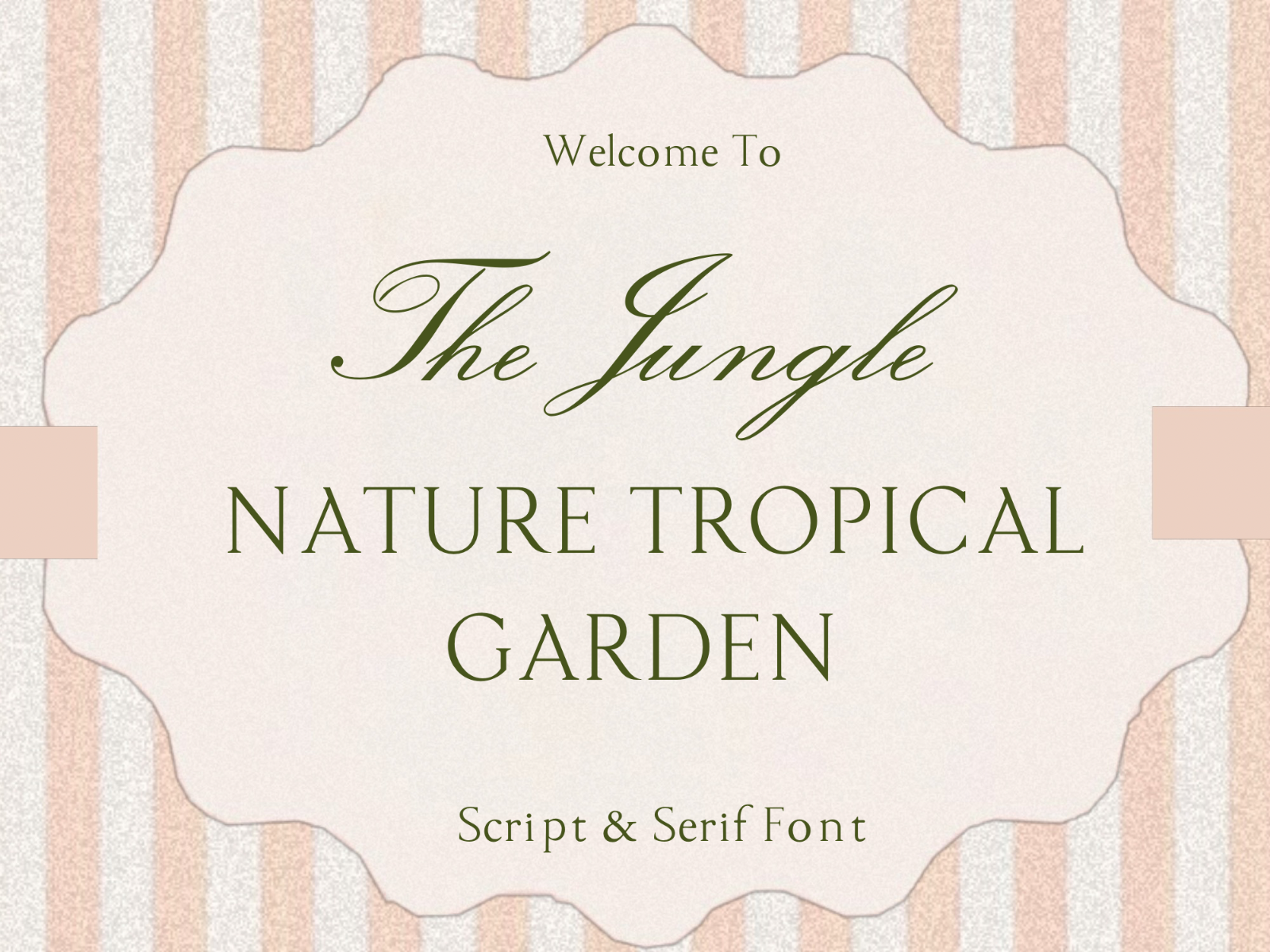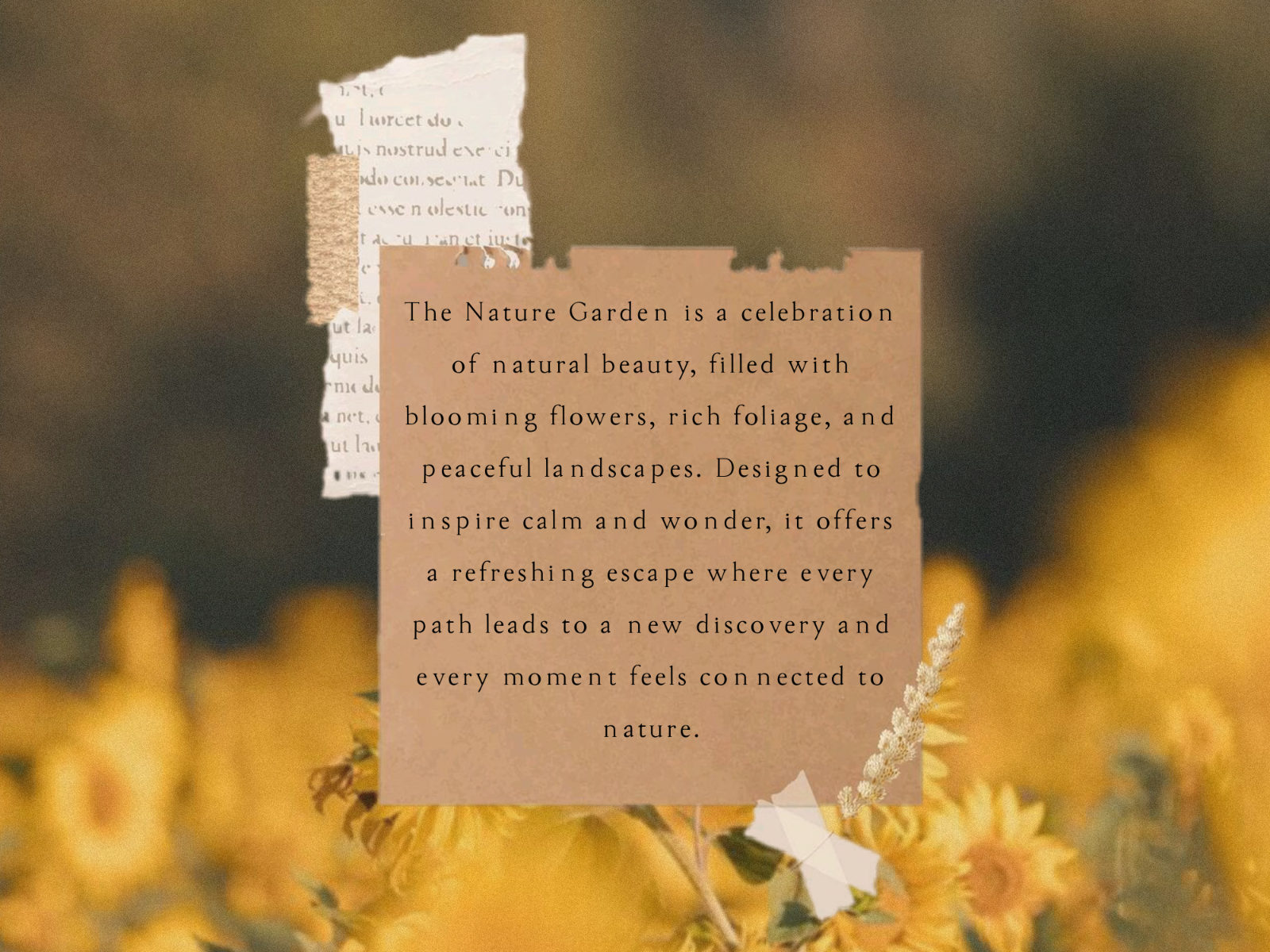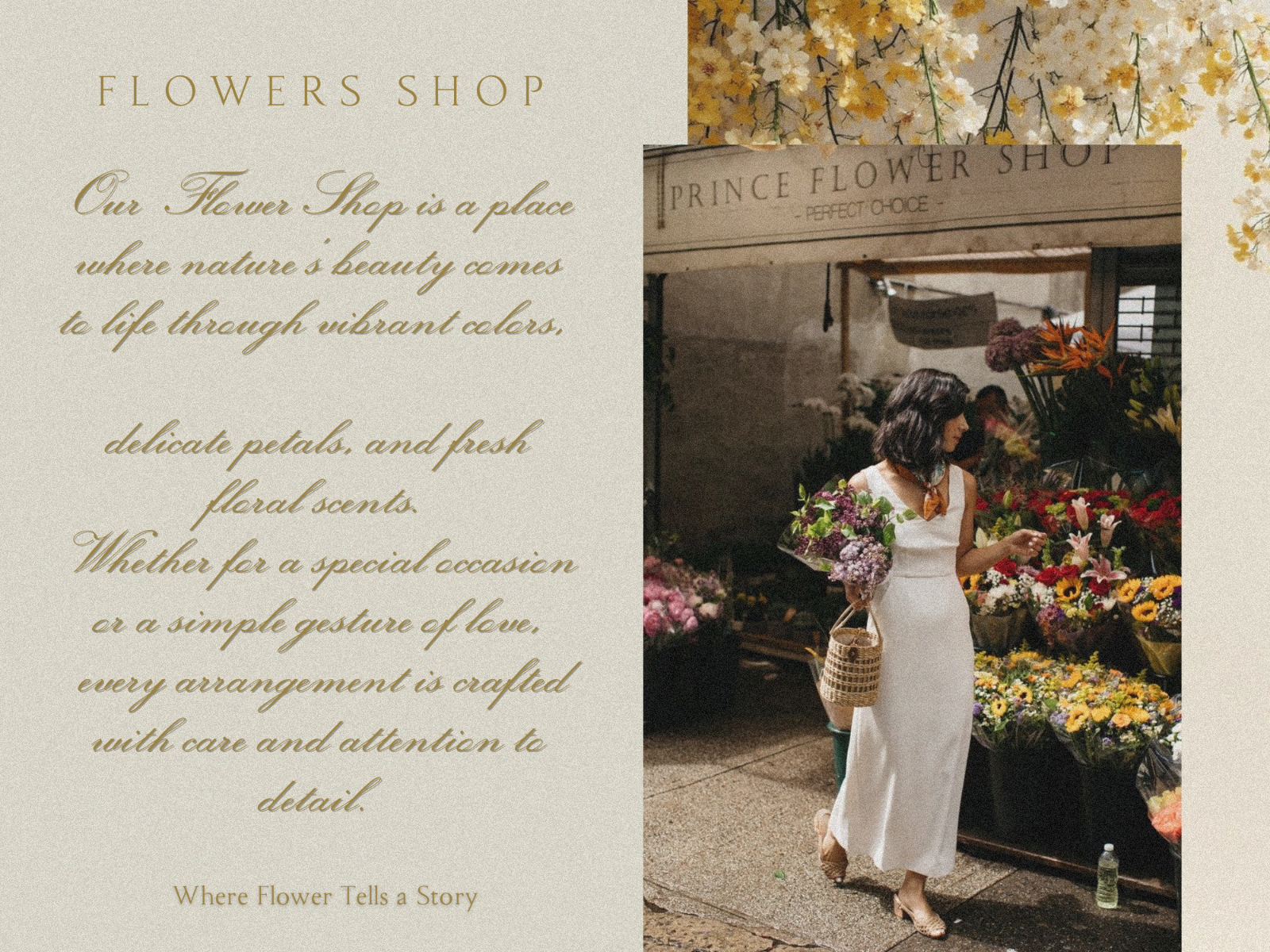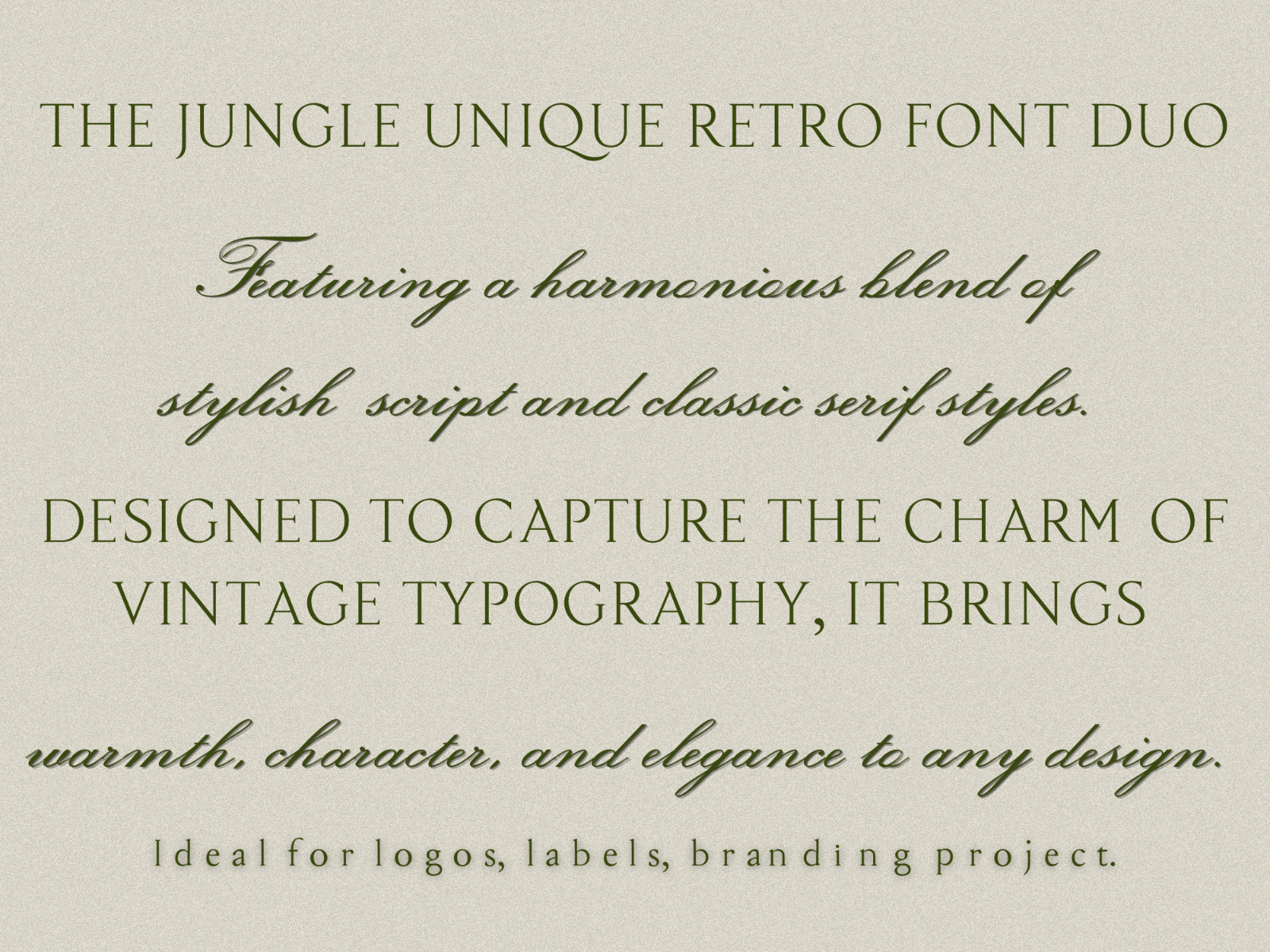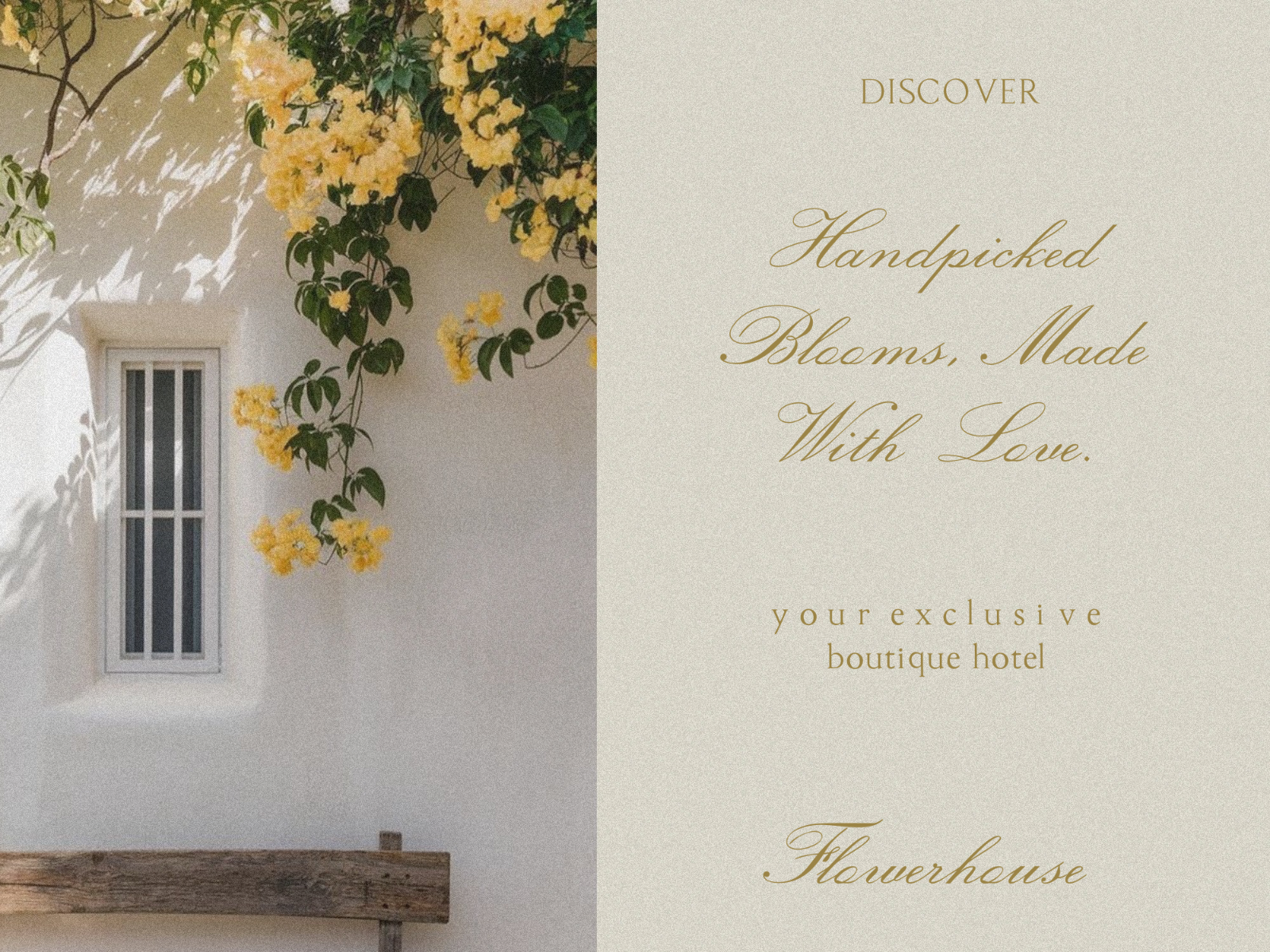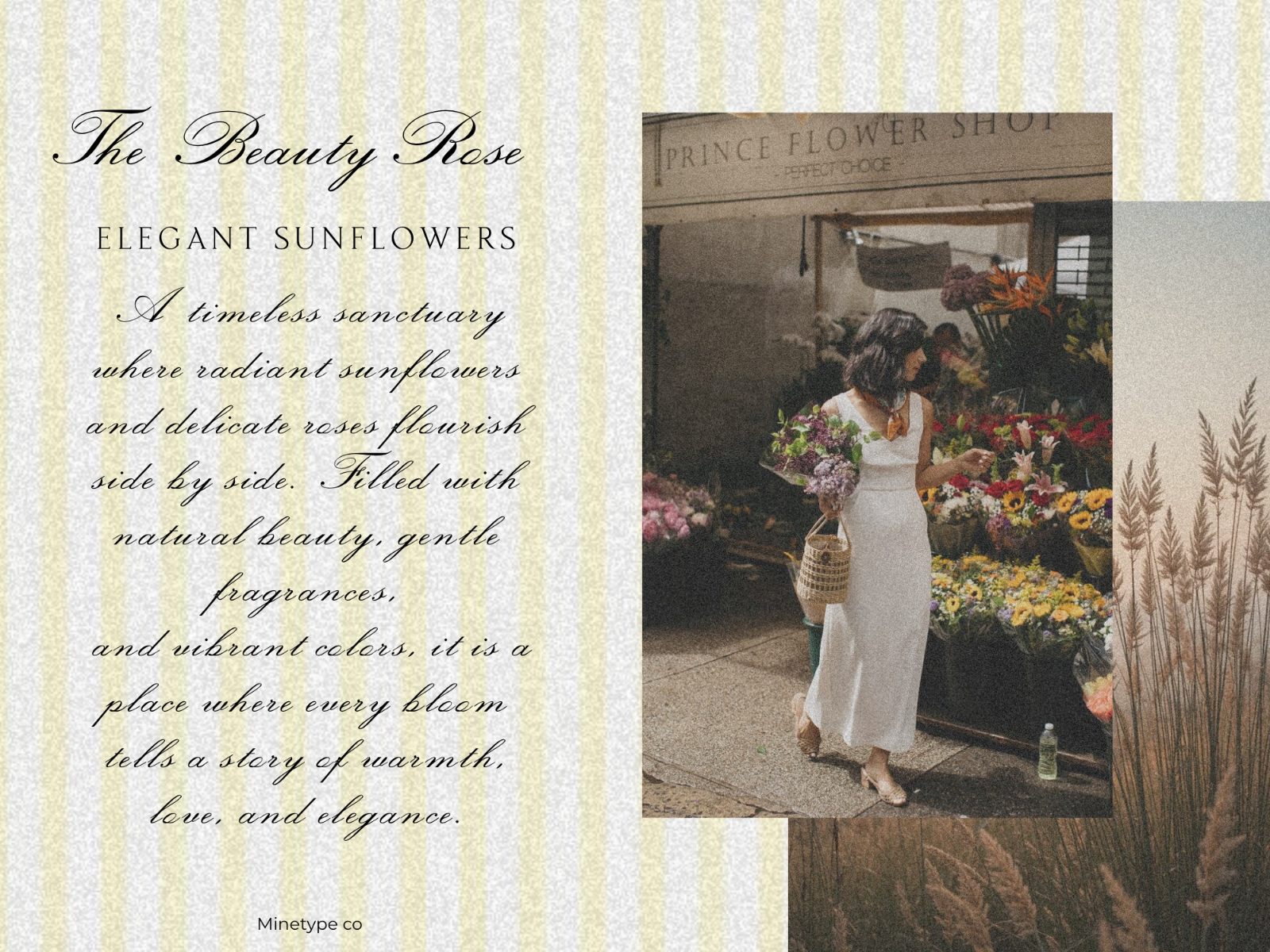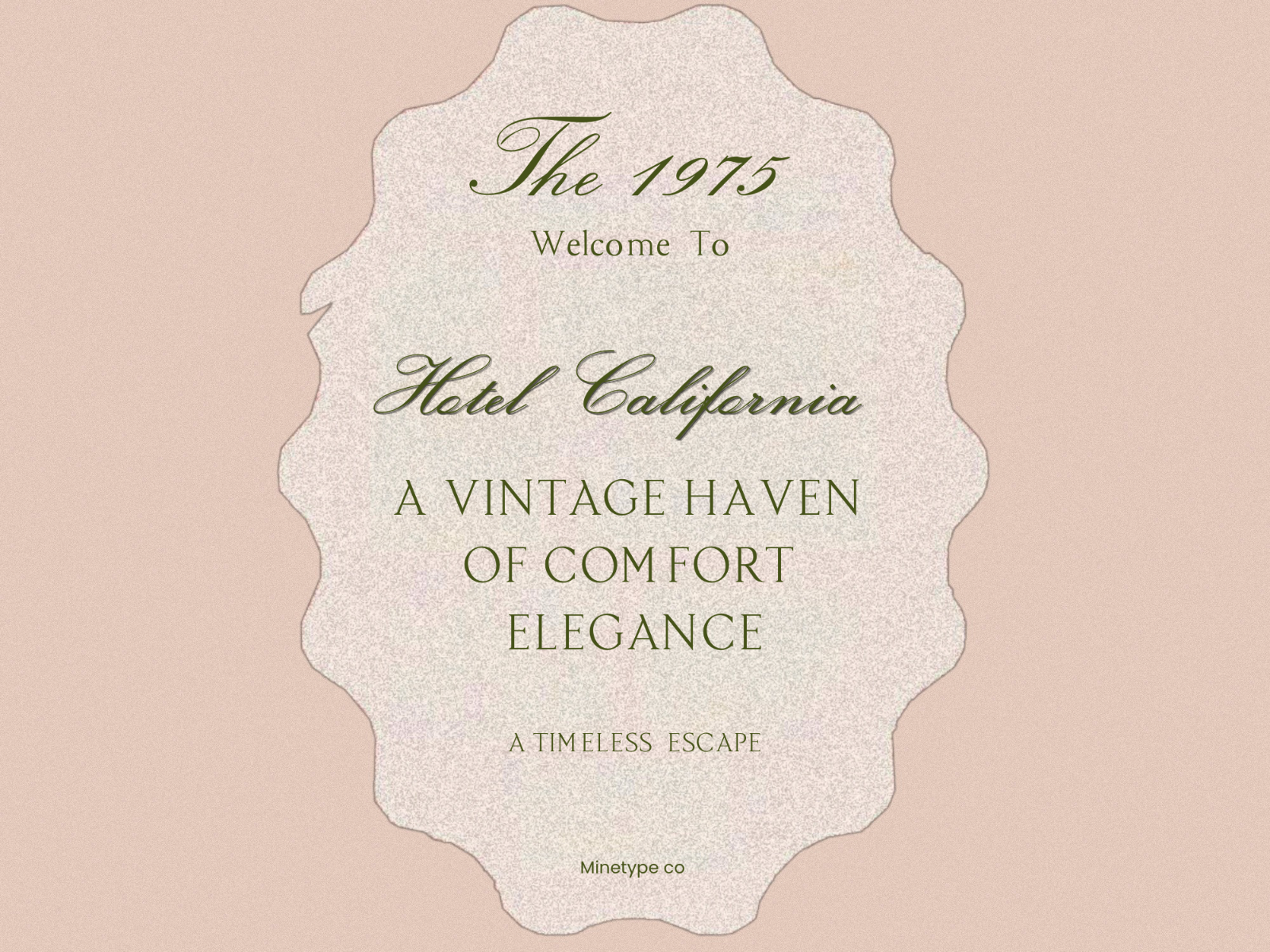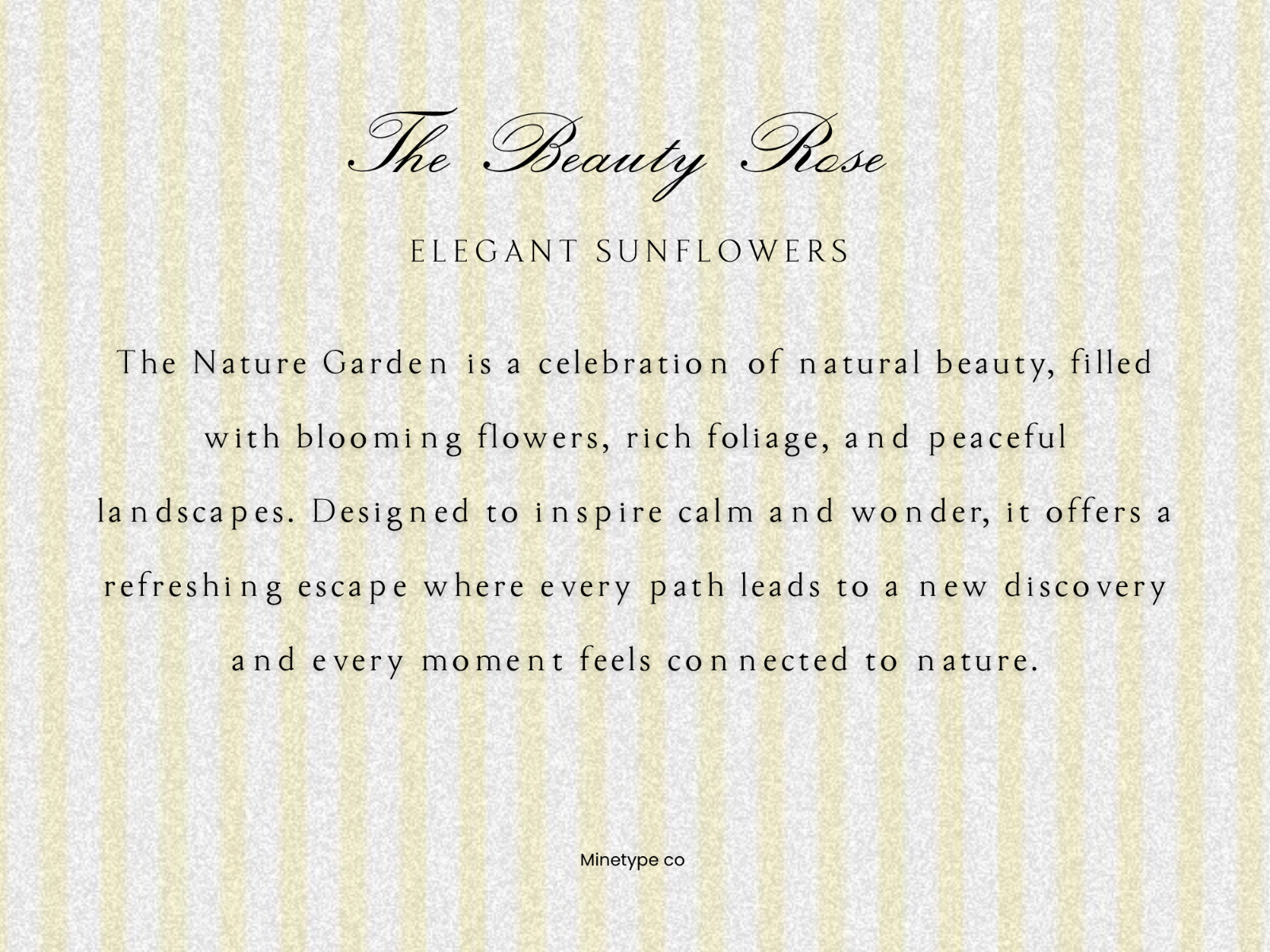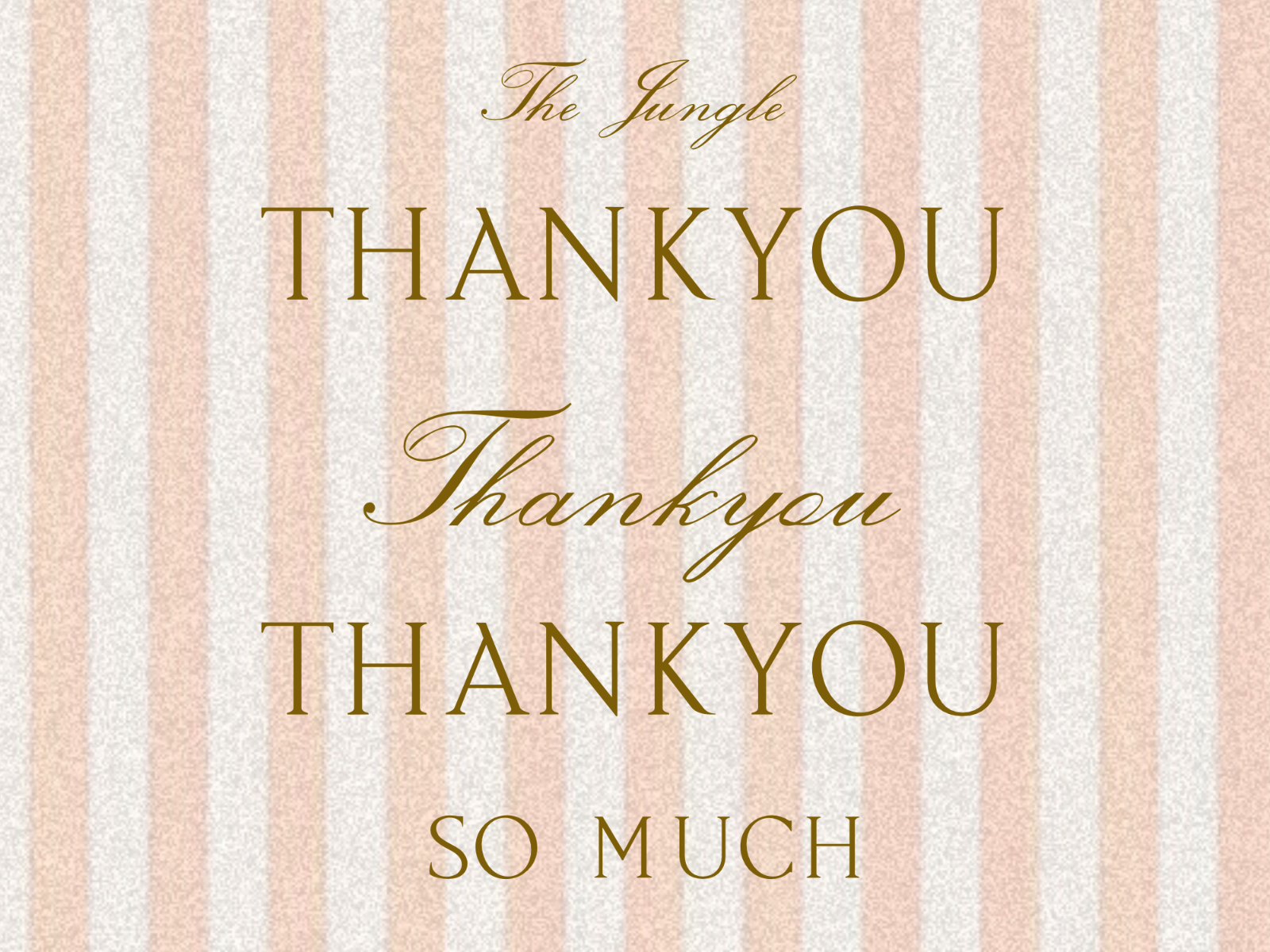
The Jungle – Nature Tropical Garden is a beautifully crafted combination of an elegant Script and timeless Serif font. The flowing script brings a warm, handcrafted personality, while the refined serif adds balance, sophistication, and excellent readability. Designed to create a fresh, organic, and premium look.
• Uppercase & lowercase characters